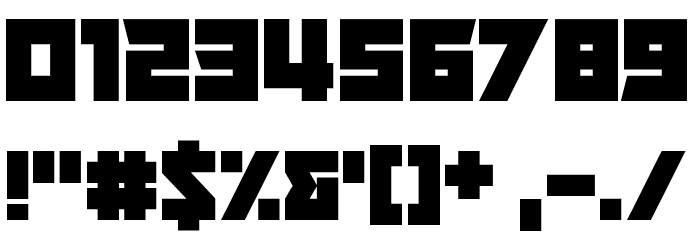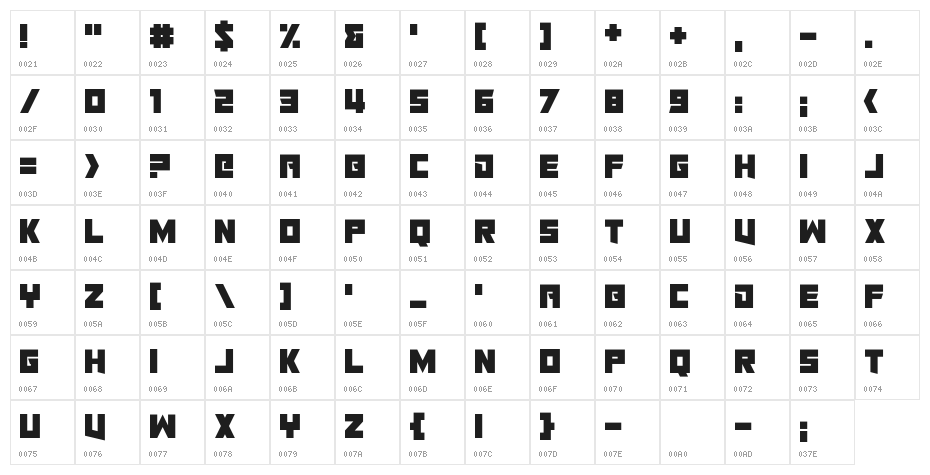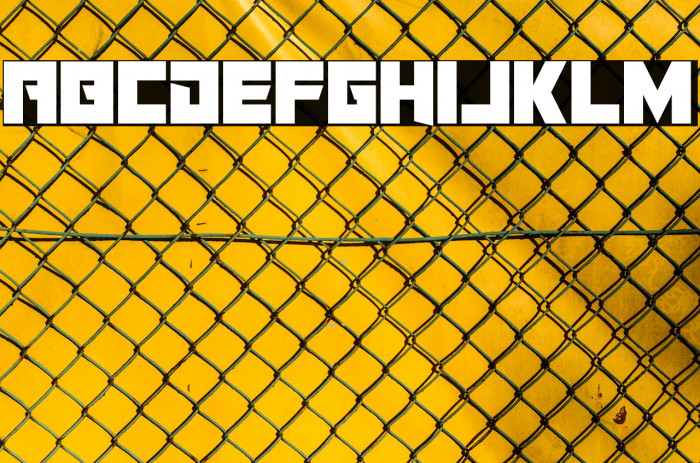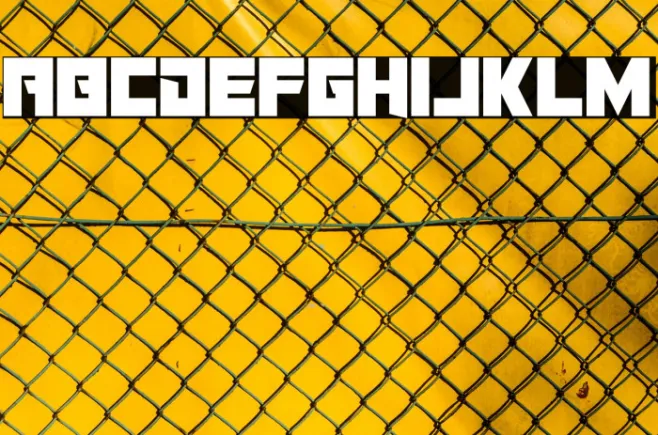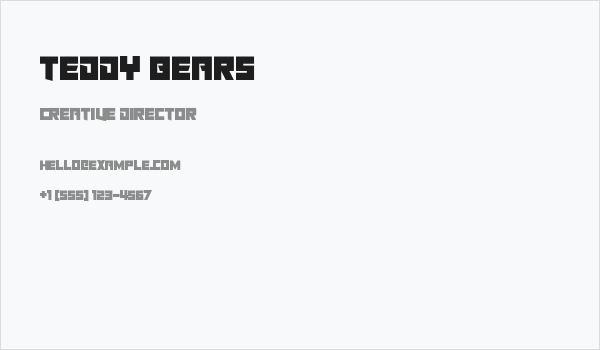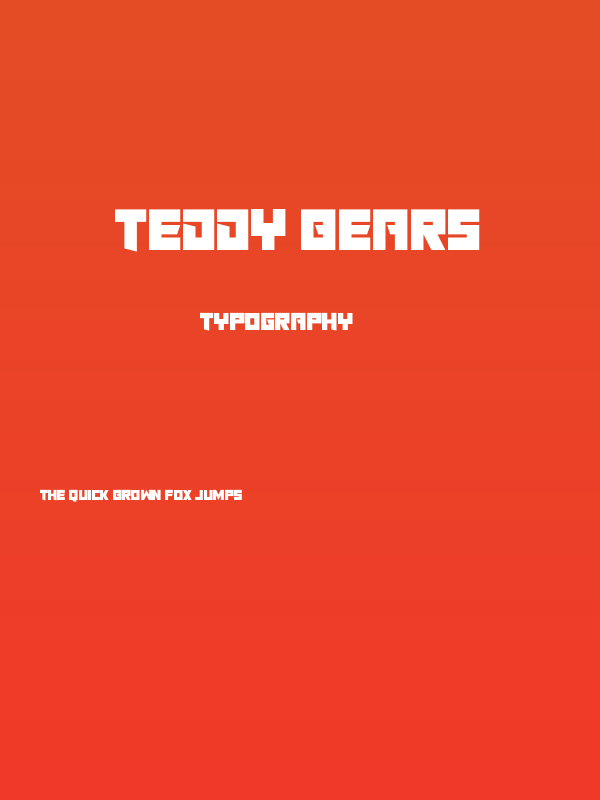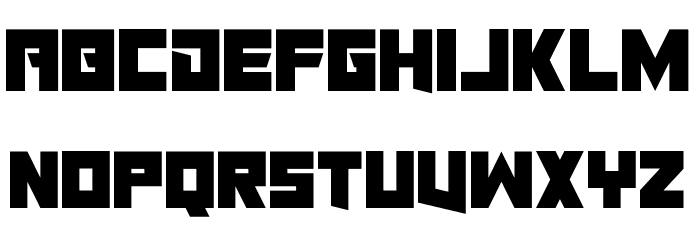
Teddy Bears Font
Teddy Bears Description
This font features a bold, geometric design with sharp angles and a blocky appearance. The characters are uniformly wide, creating a strong and impactful visual presence. The uppercase letters are particularly striking, with a consistent height and width that enhances readability. The numbers and special characters maintain the same boldness, ensuring a cohesive look across all glyphs. This font's style is reminiscent of digital or futuristic themes, making it suitable for modern and edgy designs. The overall structure is clean and uncluttered, with no additional embellishments or serifs, emphasizing its straightforward and assertive nature.
| Proposed Projects | Ideal for video game titles, tech branding, posters, and digital media. |